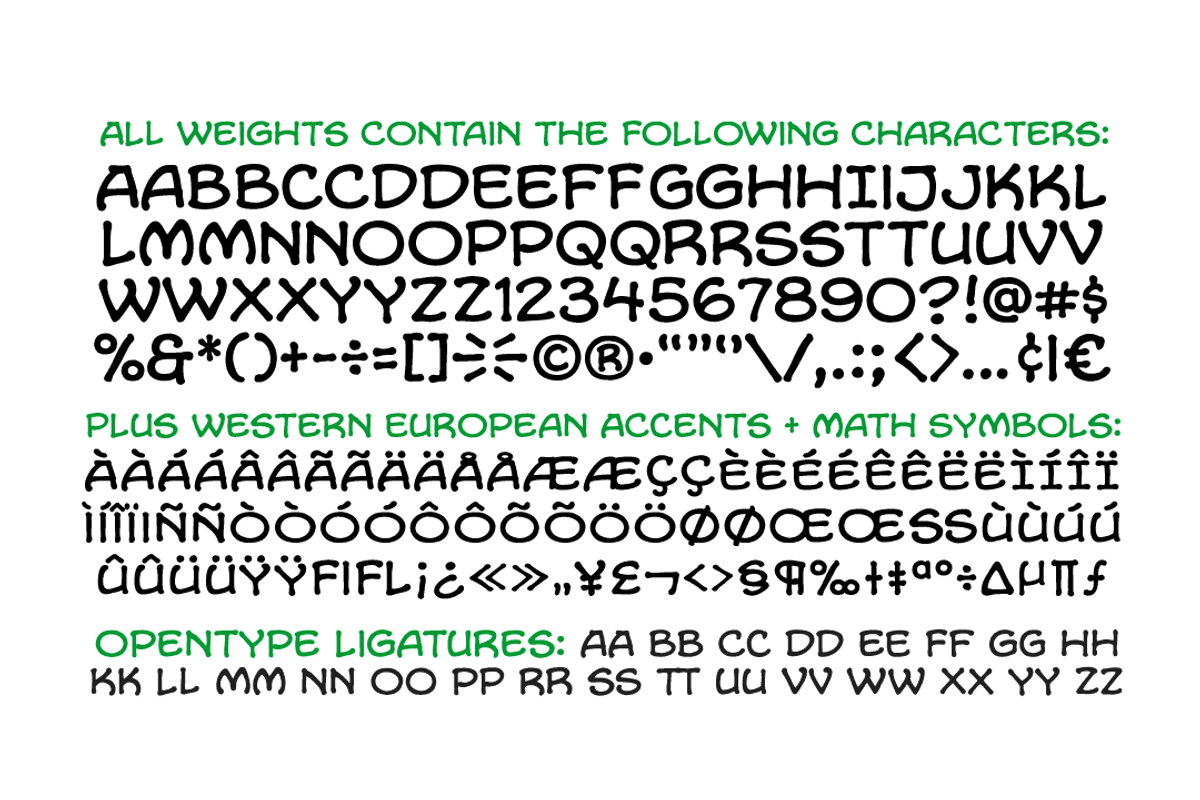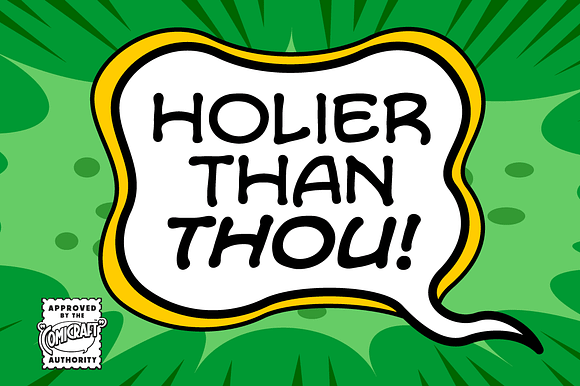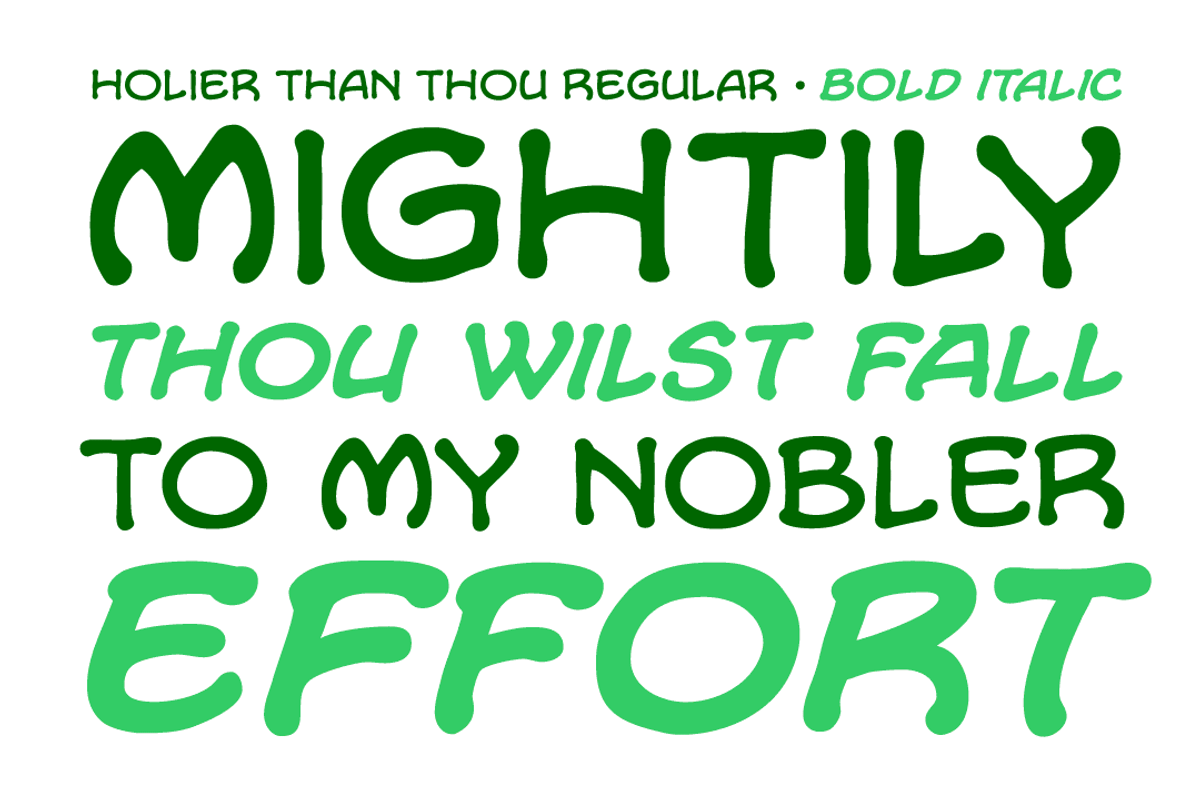
Holier Than Thou
Look well, Fontlovers, we wouldst have words with thee! By Odin's beard, let the naysayers beware, for 'tis true, Thor doth speak -- and shouldst speak -- Mighty Words! Yay there shall be a "Thee" and a "Thou" and a "Thy" and a "Smite!" Verily, 'tis understood that Elizabethan English dost suit the Gods of Asgard, mortals can never get enow.
Holier Than Thou by Comicraft Fonts fits naturally into Branding, posters, packaging, typography.